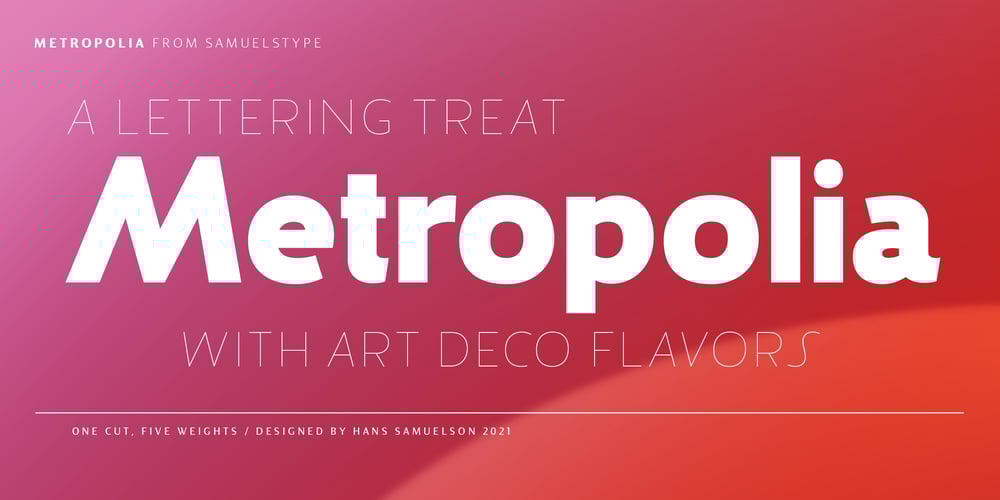
Metropolia
Metropolia font
Metropolia Font Family was designed by Hans Samuelson and published by Samuelstype. Metropolia contains 5 styles and family package options. Say hello to Metropolia! Drawing up the first roughs of this design I was aiming for a slightly asymmetrical feel. I later realized that this gave it a strong art deco influence. A slight tilt brings it a forward movement and a distinct flavour. Designed primarily for headline use, this is not your workhorse font but rather a playful and versatile addition to your font toolbox. A set of alternate capitals will be handy for headline or logo ornaments.